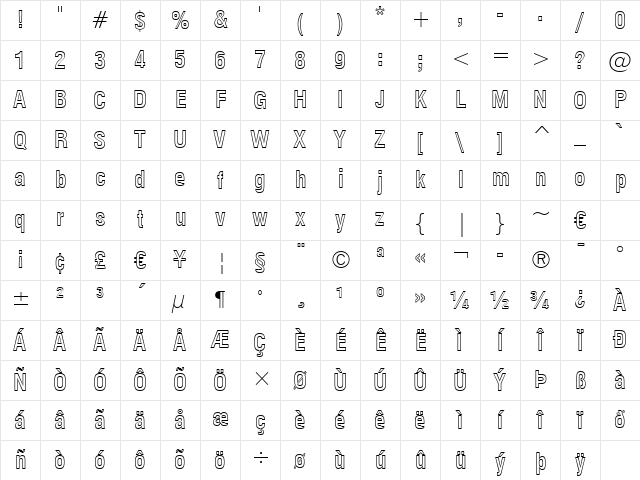
Swis721 BdCnOul BT Bold Outline Free Font
Swis721 BdCnOul BT Bold Outline
Style: Bold Outline
Complete Swis721 BdCnOul BT Bold Outline glyph index. Displaying only characters natively supported by Swis721 BdCnOul BT Bold Outline font.
Design Context for Swis721 BdCnOul BT
Swis721 BdCnOul BT is built around its visual character rather than neutral utility - its distinctive forms are designed to make an impression at display sizes. Its bold stroke weight gives it real presence on the page.
Font Pairing: Pair with a clean neutral sans-serif for body copy to let Swis721 BdCnOul BT's character lead without overwhelming the composition.
Pro Tip: Use Swis721 BdCnOul BT exclusively at display sizes - it was designed to be seen, not read at length. Let a neutral companion handle body copy.